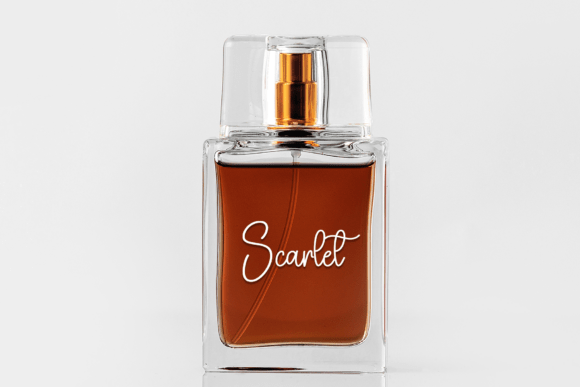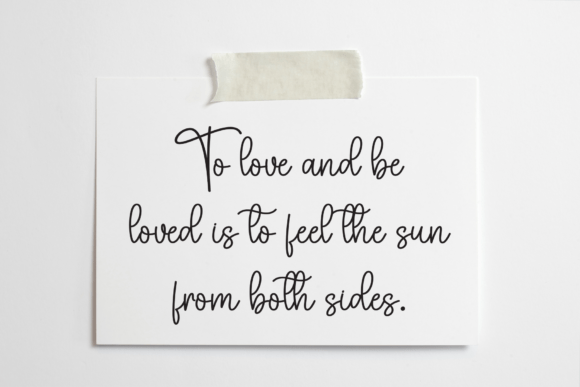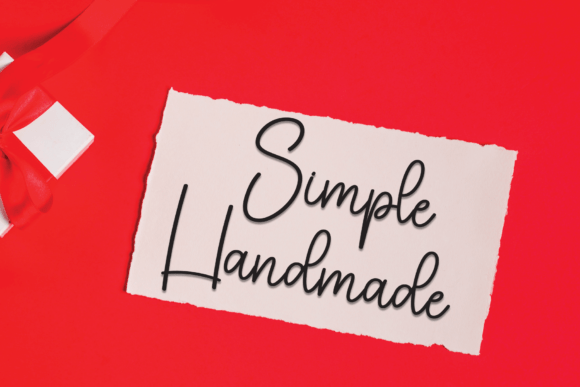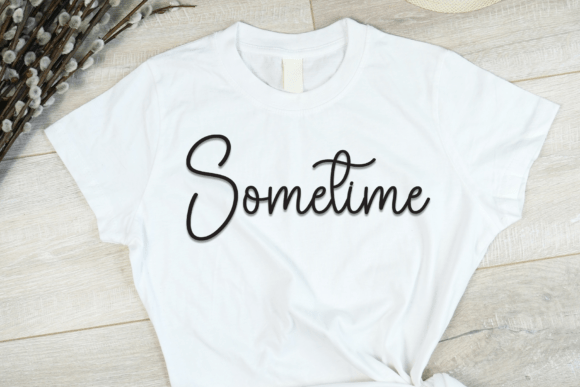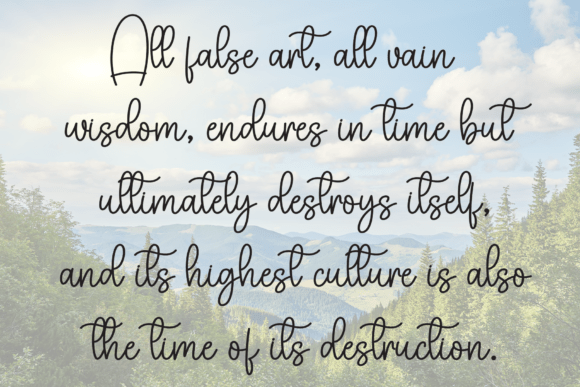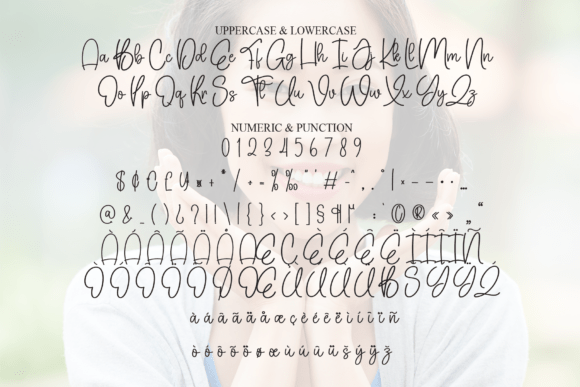
Introducing Charming Smile Font: Elevate Your Designs with Elegance and Charm
In the world of typography, a charming smile can go a long way in making your designs stand out. That’s exactly what the Charming Smile Font offers – a stylish, handwritten script font that combines elegance with a modern flair. Its flowing strokes and organic curves bring warmth and sophistication to any project, making it an ideal choice for designers and crafters looking to add a personal, refined touch to their work.
What Makes Charming Smile Font Special?
Charming Smile Font is more than just a typeface – it’s an experience. Its unique blend of classic elegance and modern sophistication makes it perfect for a wide range of design applications, from branding and invitations to social media and more. Here are some key features that make Charming Smile Font a standout:
- Handwritten Script Style: Charming Smile Font boasts a beautiful, handwritten script style that’s both elegant and approachable. Its flowing strokes and organic curves give it a personal, human touch that’s hard to replicate with traditional fonts.
- Elegant and Modern: This font combines the best of both worlds – classic elegance and modern flair. The result is a typeface that’s both sophisticated and fresh, making it perfect for designers looking to create unique and eye-catching designs.
- Warmth and Sophistication: Charming Smile Font brings a sense of warmth and sophistication to any project. Its organic curves and flowing strokes create a sense of movement and fluidity, making it perfect for designs that require a personal touch.
Charming Smile Font is an ideal choice for designers and crafters looking to elevate their designs with a touch of elegance and charm. Whether you’re working on a branding project, creating invitations, or designing social media graphics, this font is sure to impress. Here are some ways you can use Charming Smile Font to take your designs to the next level:
- Branding: Use Charming Smile Font to create a unique and memorable brand identity. Its elegant and modern style makes it perfect for logos, business cards, and other branding materials.
- Invitations: Add a touch of sophistication to your invitations with Charming Smile Font. Its flowing strokes and organic curves make it perfect for wedding invitations, birthday invitations, and other special occasions.
- Social Media: Use Charming Smile Font to create eye-catching social media graphics that stand out from the crowd. Its modern style and elegant flair make it perfect for Instagram, Facebook, and other social media platforms.
Tips for Using Charming Smile Font
To get the most out of Charming Smile Font, here are some tips to keep in mind:
- Use it sparingly: While Charming Smile Font is beautiful, it can be overwhelming if used too much. Use it sparingly to add a touch of elegance and charm to your designs.
- Pair it with other fonts: Charming Smile Font pairs well with other fonts, especially sans-serif fonts. Experiment with different font combinations to find the perfect pairing for your design.
- Experiment with colors: Charming Smile Font looks great in a variety of colors. Experiment with different colors and textures to find the perfect look for your design.
Charming Smile Font is a stylish and elegant handwritten script font that’s perfect for designers and crafters looking to add a touch of sophistication and charm to their designs. Its flowing strokes and organic curves bring warmth and elegance to any project, making it an ideal choice for branding, invitations, social media, and more. With its modern flair and classic elegance, Charming Smile Font is sure to become a favorite in your design toolkit.